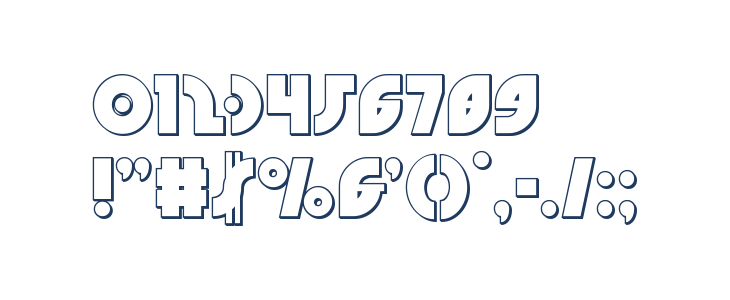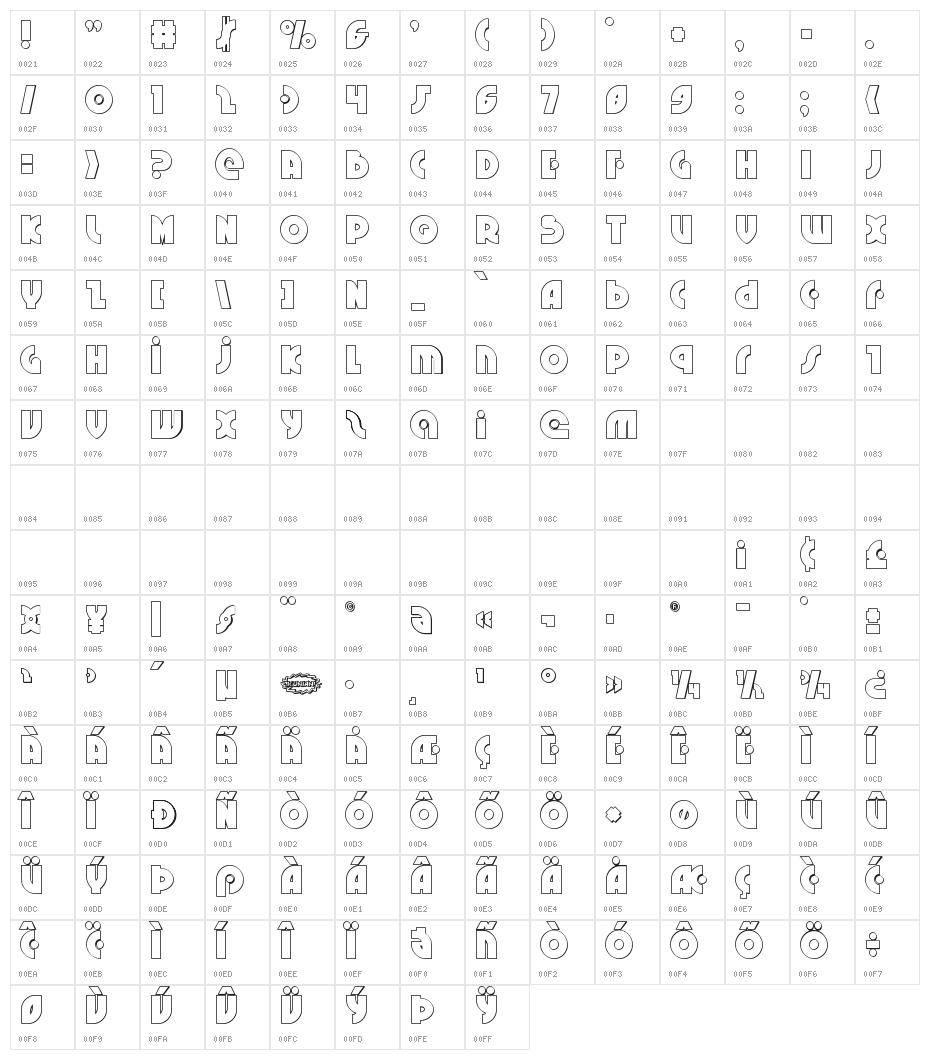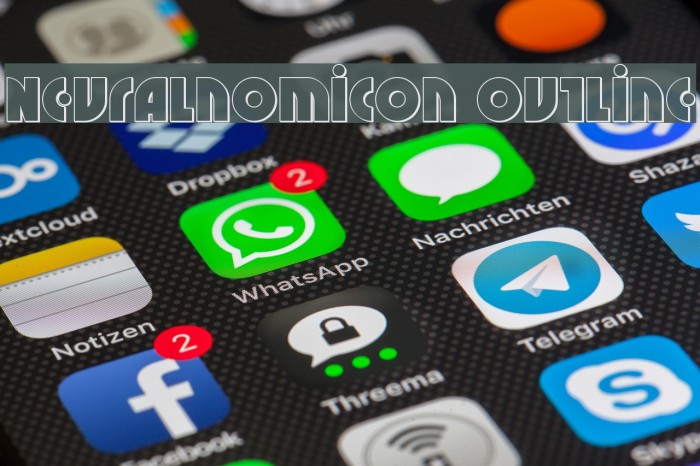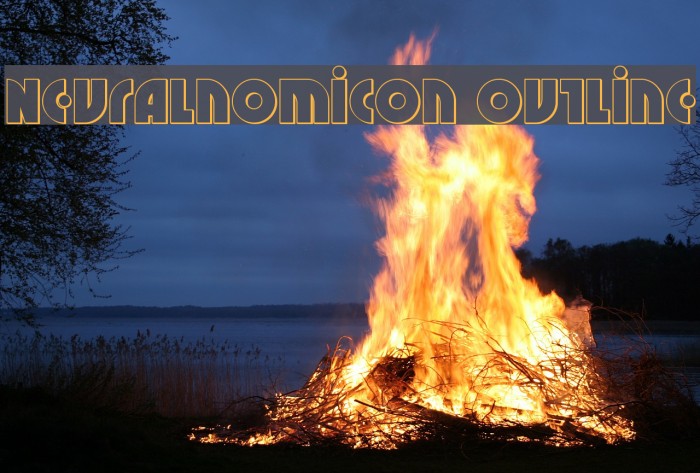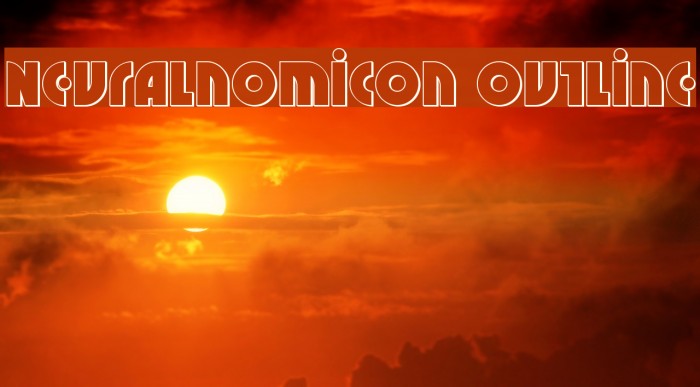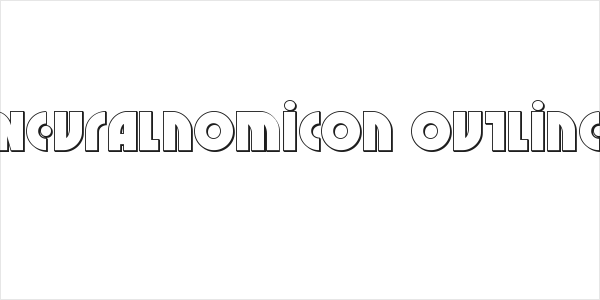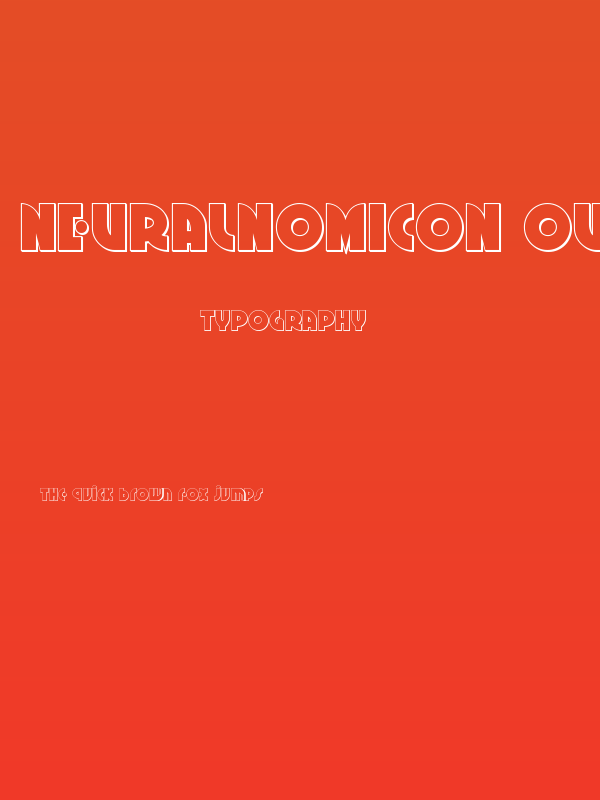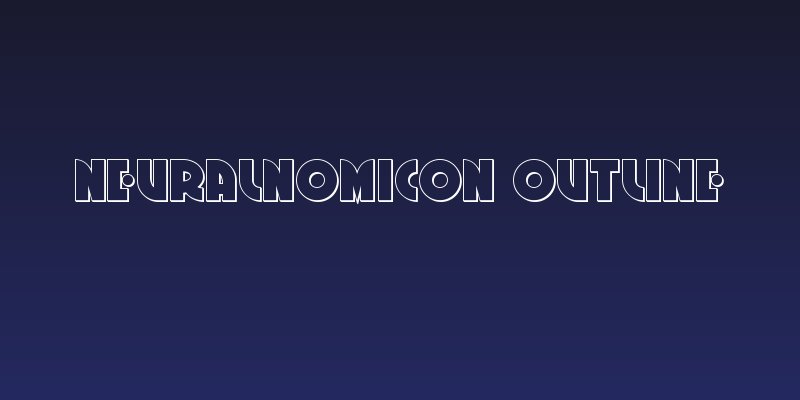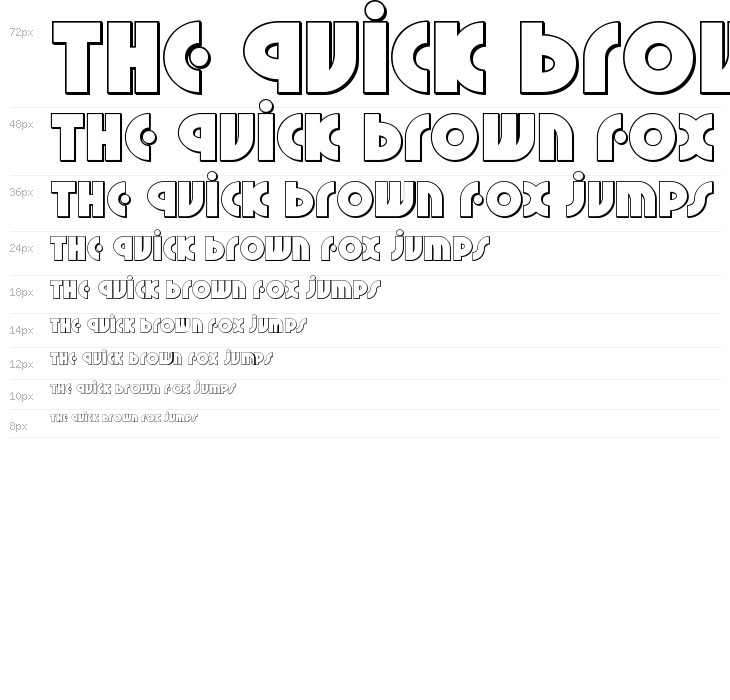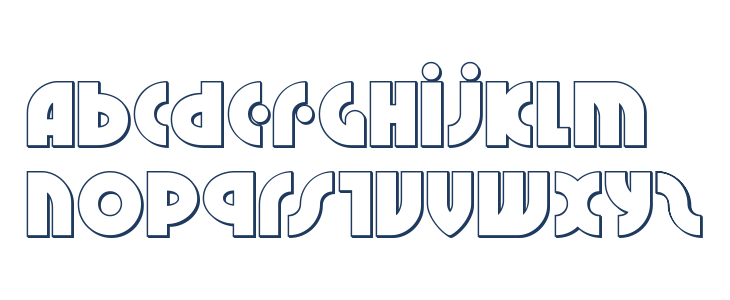
Neuralnomicon Outline Font
Neuralnomicon Outline Description
This font features a bold, geometric outline style with a futuristic and playful aesthetic. The characters are constructed with thick lines and rounded edges, creating a sense of depth and dimension. The uppercase and lowercase letters maintain a consistent style, with unique cutouts and shapes that add visual interest. Numbers and special characters follow the same design principles, ensuring uniformity across all glyphs. The font's outline nature makes it ideal for creative and eye-catching designs.
| Proposed Projects | Ideal for posters, album covers, video game graphics, and branding that requires a modern and distinctive look. |